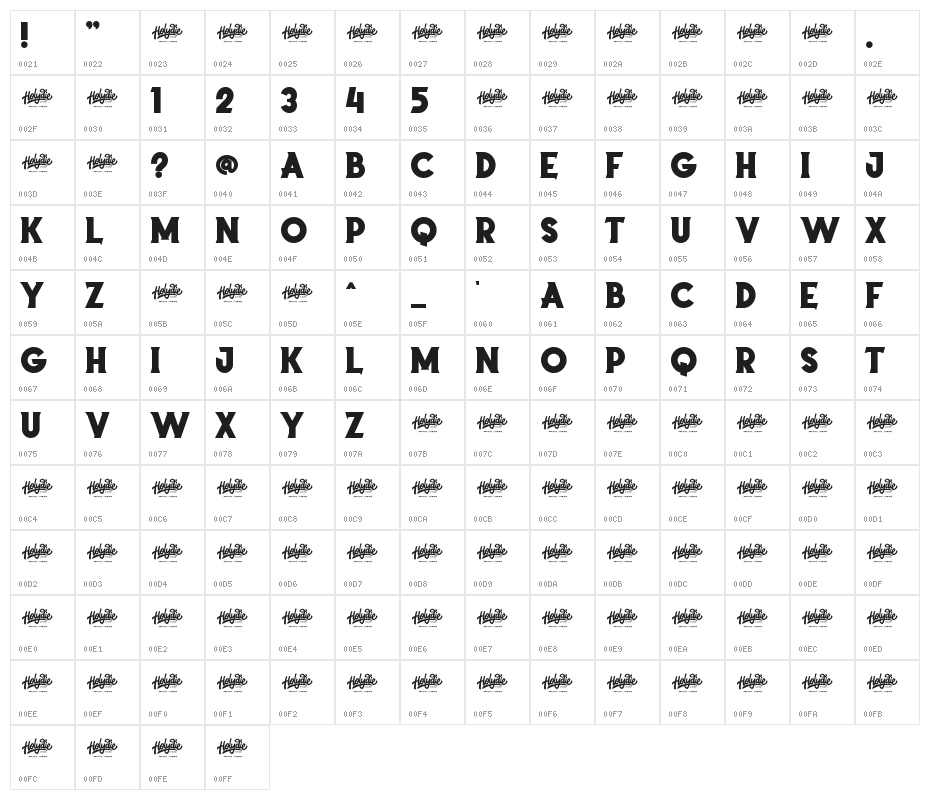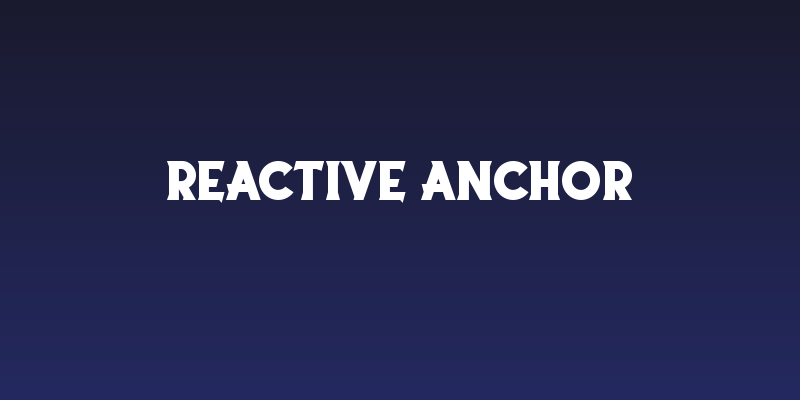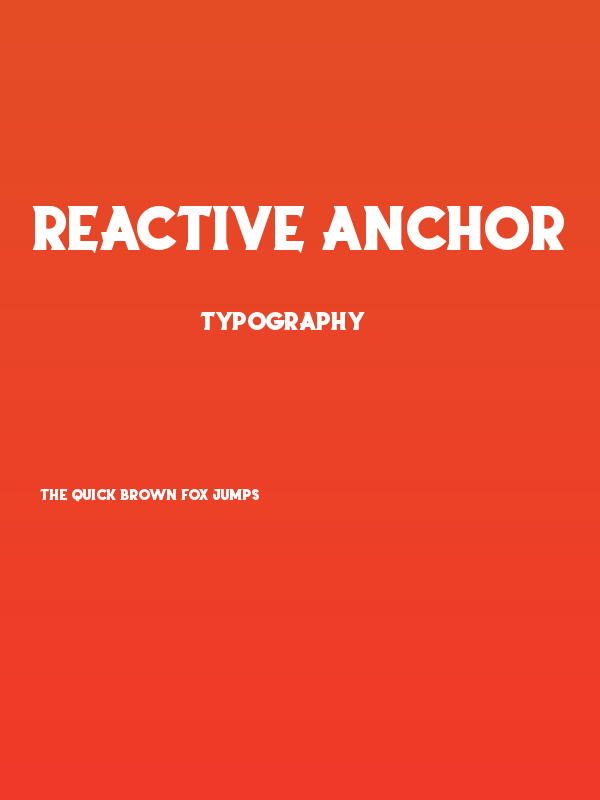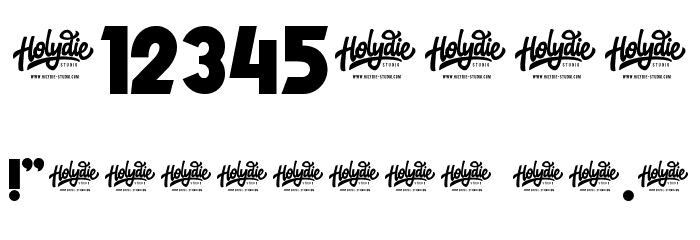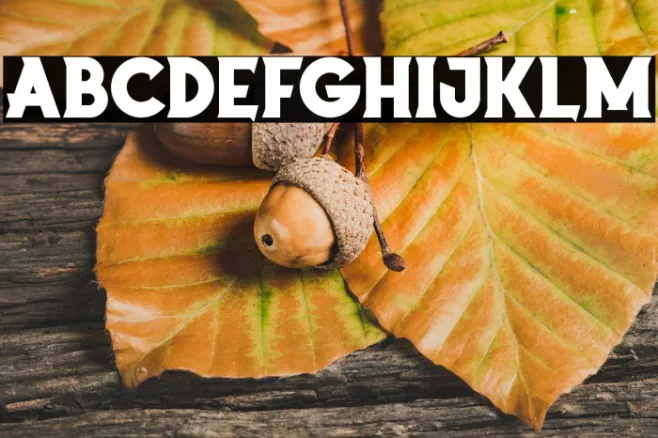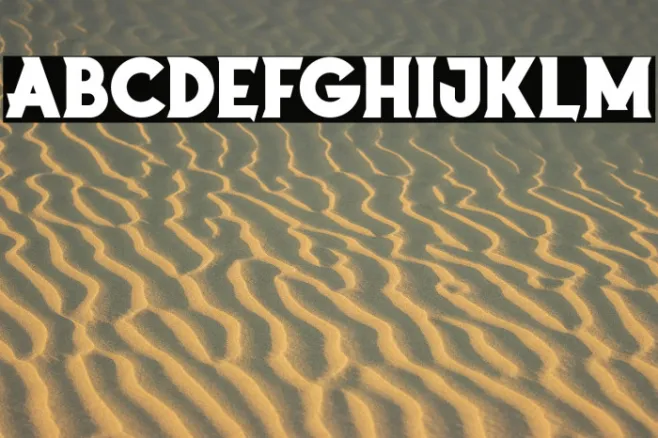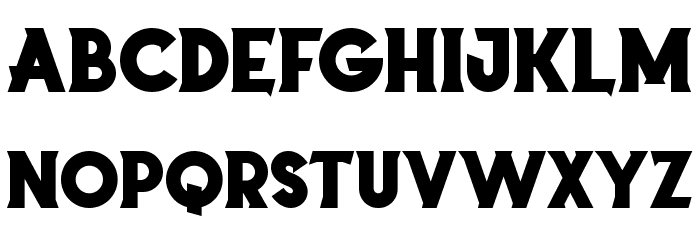
Reactive Anchor Font
Reactive Anchor Description
This font features bold, geometric letterforms with a strong presence. The uppercase letters are characterized by sharp angles and a sense of solidity, making them highly suitable for impactful headlines. The lowercase letters maintain the boldness, with a slightly more rounded approach, adding a touch of softness to the overall design. The numerals are consistent with the bold style, ensuring readability and uniformity across different uses. The special characters are designed to complement the bold aesthetic, providing a cohesive look throughout. This font is ideal for projects that require a strong visual impact, such as branding, posters, and advertising materials.